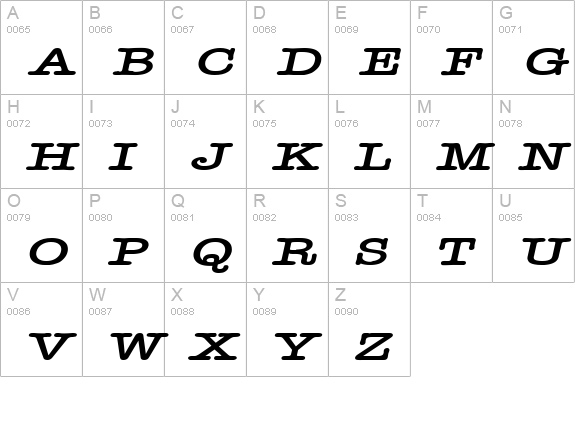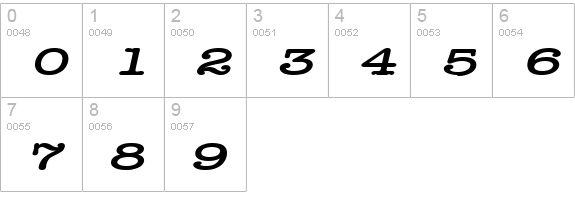
Headline Extended BoldItalic Font Details
Headline Extended BoldItalic is a distinctive, extended-width variant in the Headline typeface family \xE2\x80\x94 well suited to design and typography projects.
Introducing the captivating and elegant Headline Extended BoldItalic font, designed to make a lasting impression on any project. This font boasts a unique blend of boldness and italics, creating a striking visual impact that is sure to grab attention. With its extended letterforms, Headline Extended BoldItalic exudes sophistication and modernity, making it the perfect choice for headlines, titles, logos, and other design elements that demand a touch of flair. Its sleek and stylish glyphs add a touch of professionalism and refinement to any text, ensuring that your message stands out from the crowd. But what truly sets Headline Extended BoldItalic apart is its accessibility. This incredible font is available for free download at FontsMarket.com, making it easily accessible to designers, creatives, and enthusiasts alike. Now, you can effortlessly add a touch of contemporary elegance to your projects without breaking the bank. Whether you're working on a branding project, a magazine layout, or a website design, Headline Extended BoldItalic offers endless possibilities. Its versatility and expressive nature allow you to convey your message with confidence and style. Break free from the ordinary and unleash your creativity with this exceptional font. So why wait? Experience the power of Headline Extended BoldItalic and elevate your designs to new heights. Download it for free at FontsMarket.com and let your imagination run wild. Get ready to captivate your audience and leave a lasting impression with this remarkable font that is just a click away.